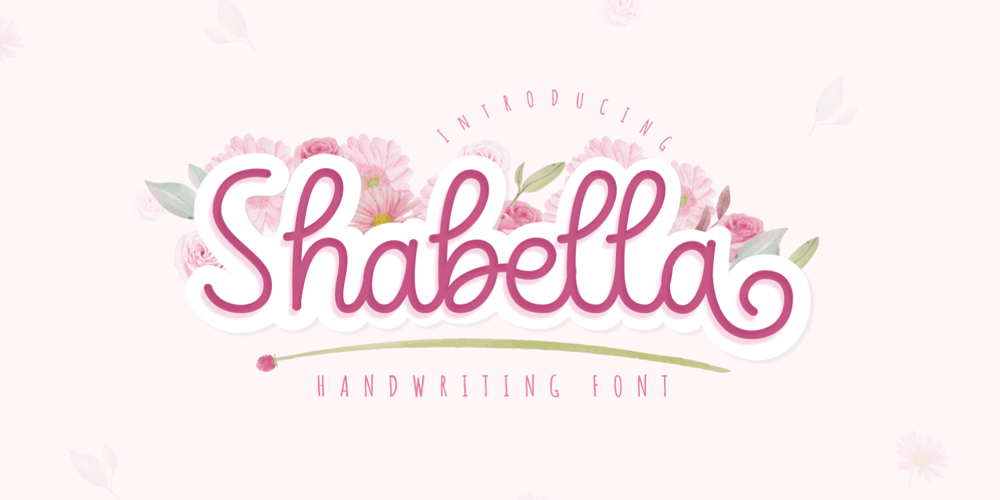
Shabella Font Family was designed by Miftahul Habib and published by Tlatous Type. Shabella contains 1 styles and family package options. Introducing Shabella by Tlatous Type.Shabella is a Modern Handwritten Font.Shabella is perfect for product packaging, branding project, megazine, social media, wedding, or just used to express words above the background.